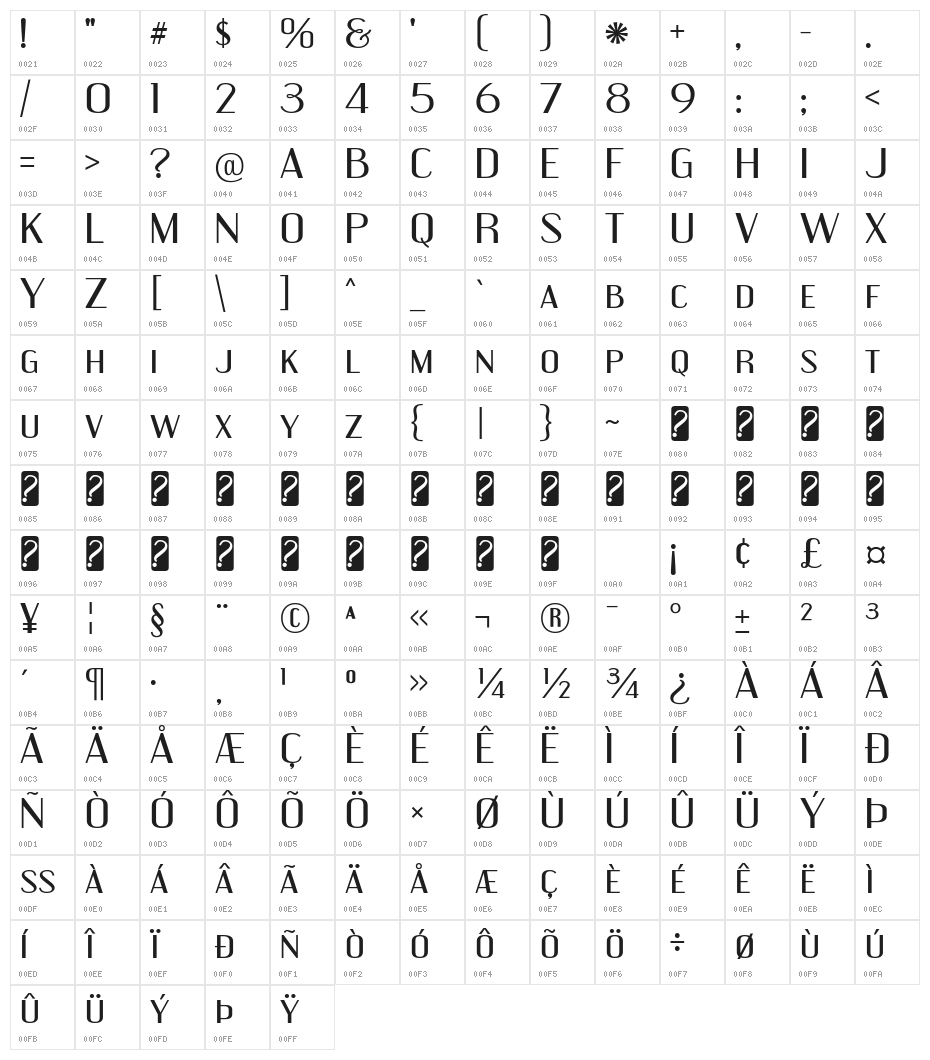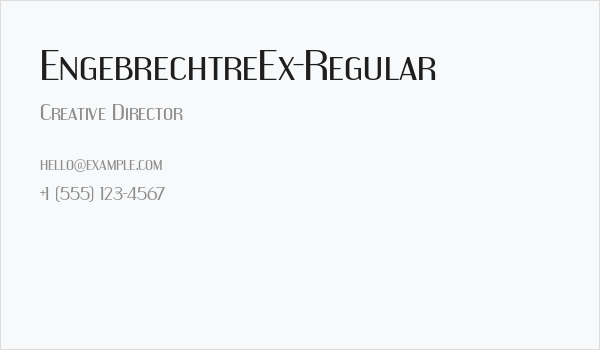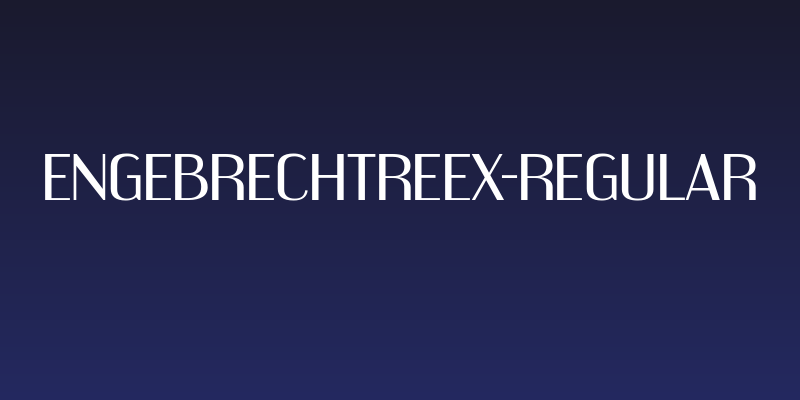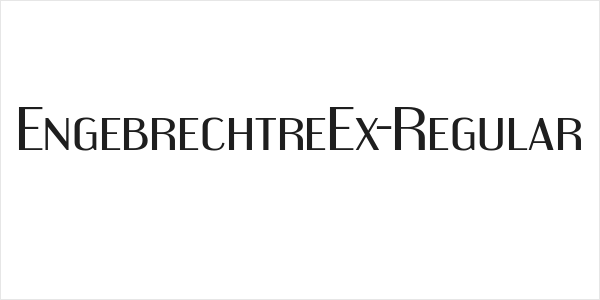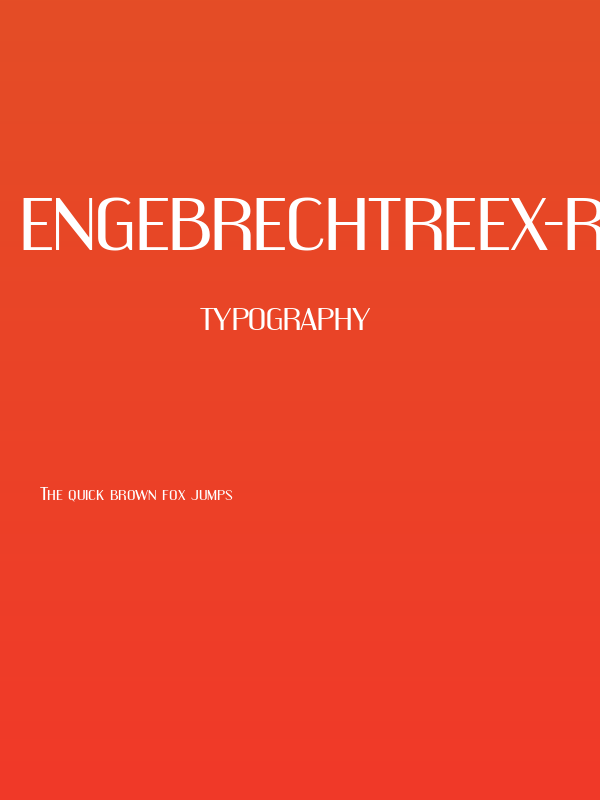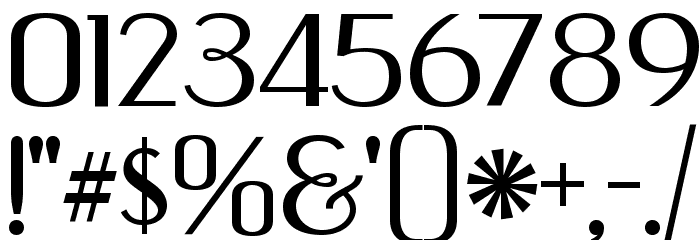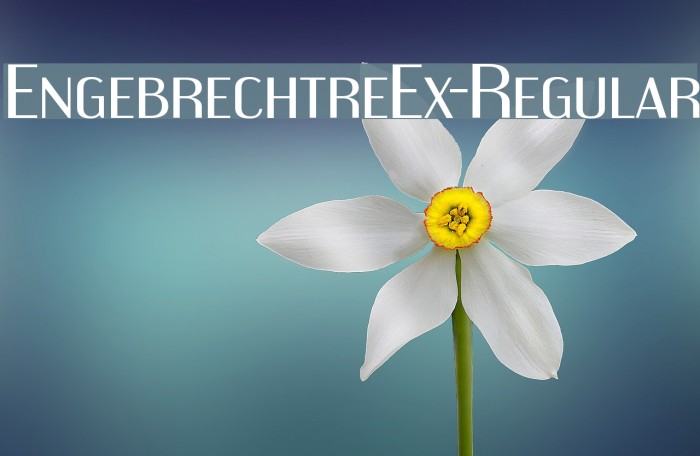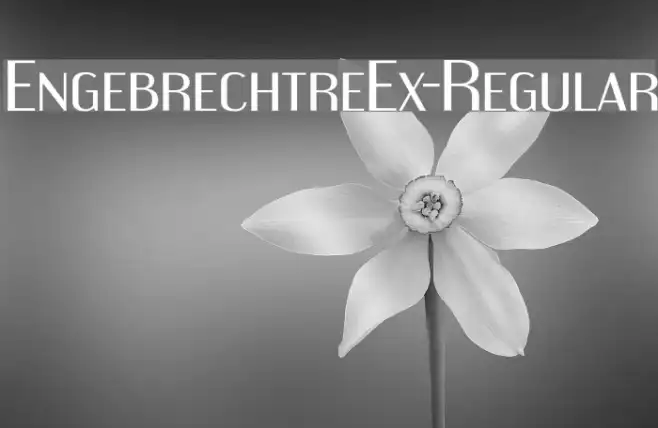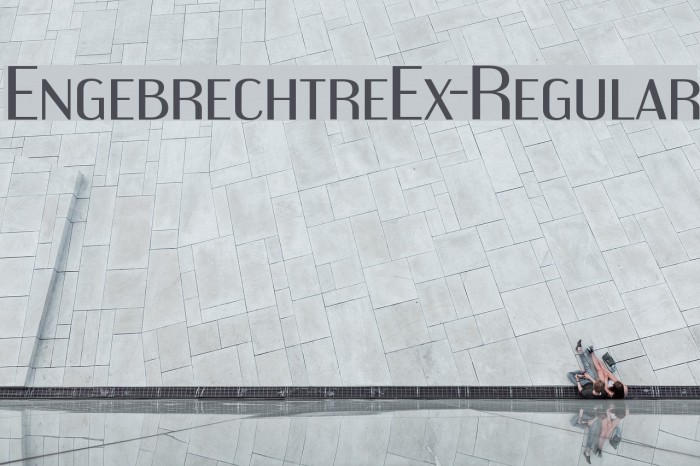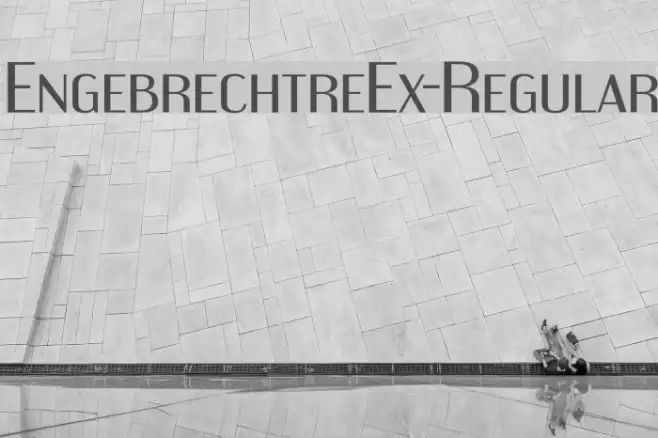
EngebrechtreEx-Regular Font
EngebrechtreEx-Regular Description
This font features a sleek and modern design with clean, straight lines and a geometric structure. The characters are tall and narrow, giving it a condensed appearance. The uppercase and lowercase letters maintain a consistent style, with sharp angles and minimal curves. The numerals are equally streamlined, matching the overall aesthetic. Special characters are designed with the same precision, ensuring uniformity across all glyphs. This font's clarity and simplicity make it versatile for various design applications.
| Proposed Projects | Ideal for branding, editorial design, and digital interfaces where a modern and clean look is desired. |